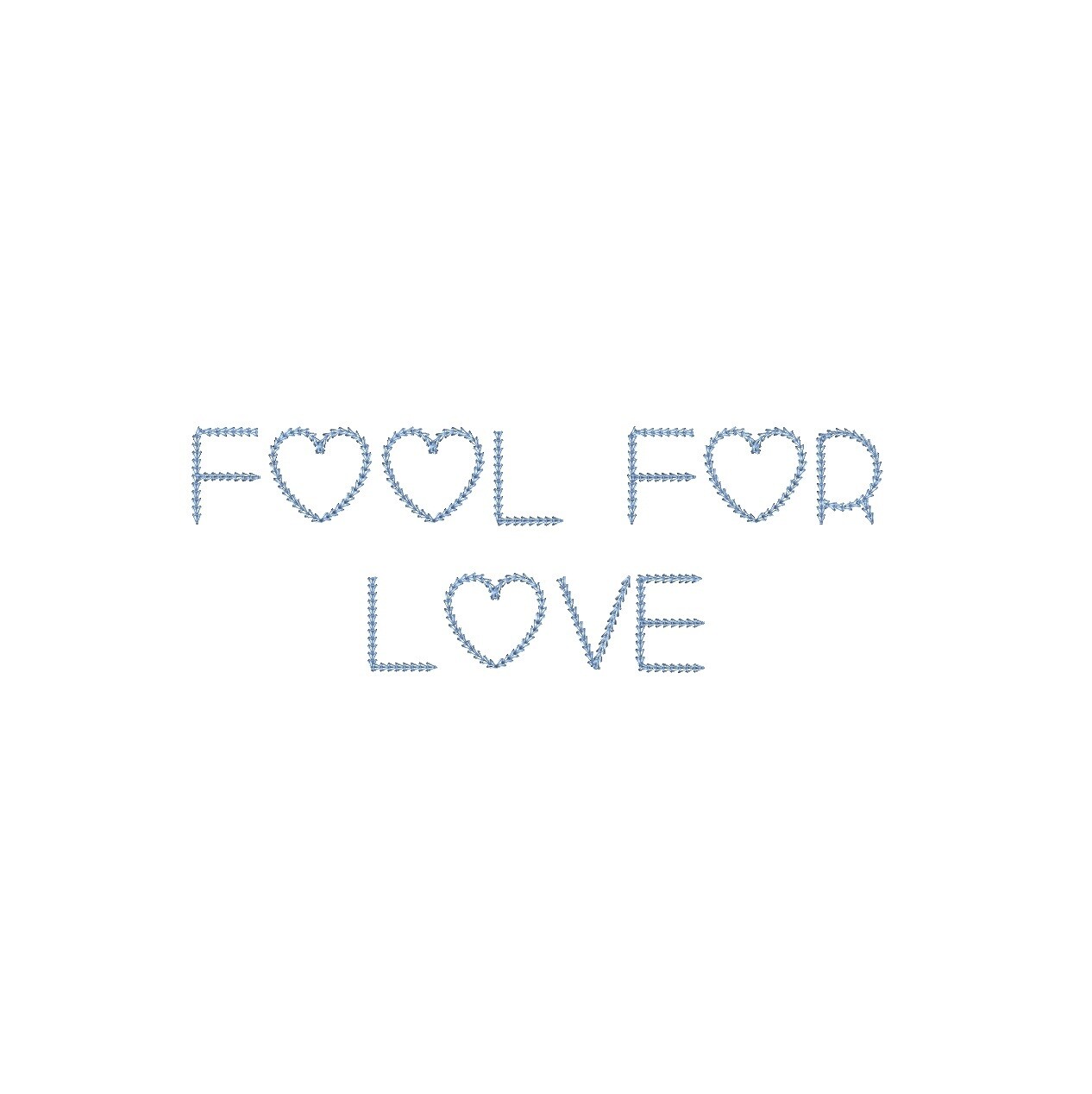
Elevate your embroidery with the Fool for Love Chain Stitch ESA font. Perfectly compatible with Wilcom Studio e4.5.6 and Hatch 3 versions and beyond, it infuses passion into your designs. Meticulously crafted, the font's chain stitch artistry adds depth and allure to every project. Seamlessly integrate for captivating results that stand out. Fool for Love transforms fabric into a canvas of emotion, enhancing your creations with romantic charm. Elevate your embroidery with this seamless blend of technology and artistry. Experience the power of Fool for Love Chain Stitch ESA font to redefine stitching excellence. Upgrade your designs today for heartfelt impact.